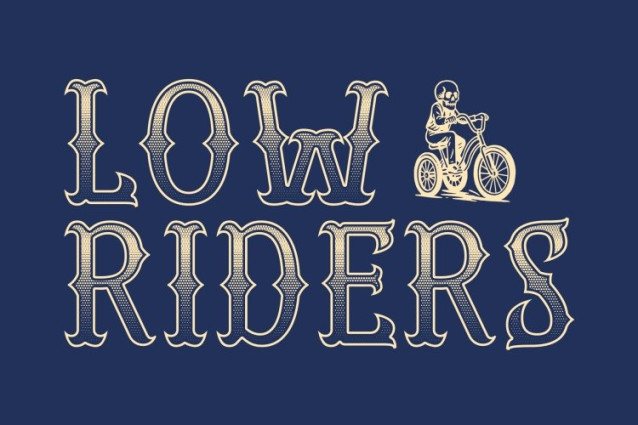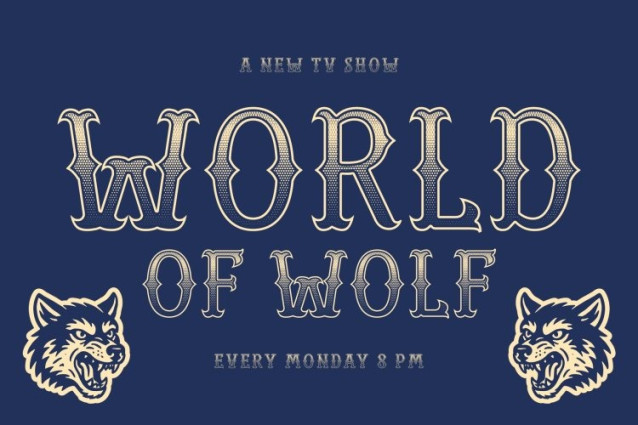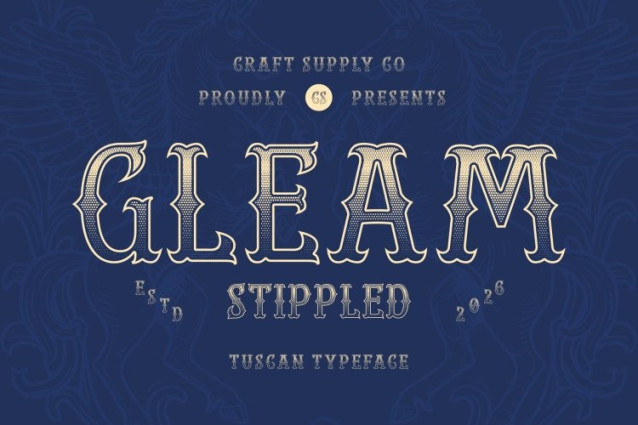
CS Gleam Stippled Font
CS Gleam Stippled Font is a bold Tuscan display font distinguished by its split terminals, decorative curves, and dramatic contrast. Inspired by the expressive typography of the 19th century, it captures the charm of vintage signage, circus posters, and traditional letterpress design. The added stippled texture introduces a dotted, tactile surface that enhances its antique character, giving the font a handcrafted, weathered impression that feels rich with history.
Distinctive Vintage Personality
The defining Tuscan features split serifs, ornamental details, and confident letterforms create a visually captivating presence. Combined with the stippled effect, the font gains an extra layer of depth and texture, reinforcing its nostalgic atmosphere while maintaining strong readability in display settings.
Western and Victorian Influences
This font draws inspiration from Western-era typography and Victorian decorative styles, evoking the bold spirit of old saloons, theatrical posters, and heritage branding. Its dramatic shapes and textured finish give designs a sense of authenticity and storytelling, making every headline feel expressive and memorable.
Perfect for Vintage and Themed Designs
Ideal for posters, signage, branding, packaging, and themed visual identities, this font brings a distinctive retro flair to any composition. Whether used for whiskey labels, Western-style graphics, heritage logos, or editorial headlines, the font adds a bold historical touch.